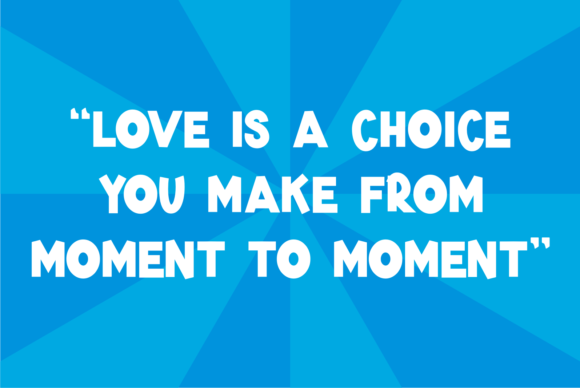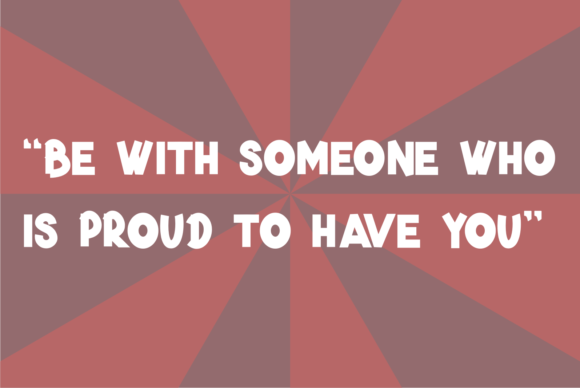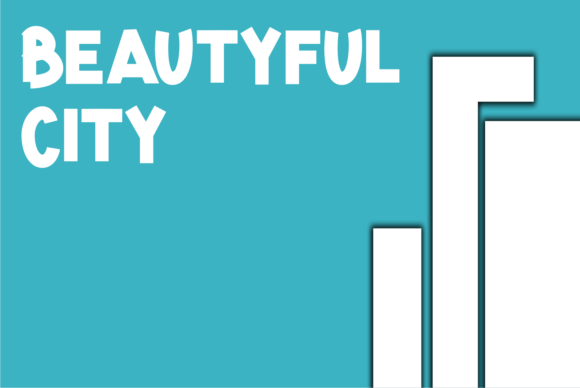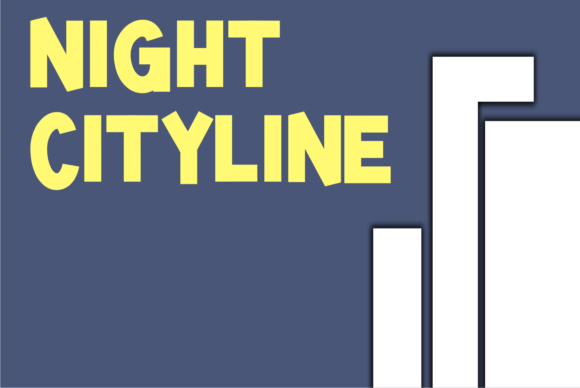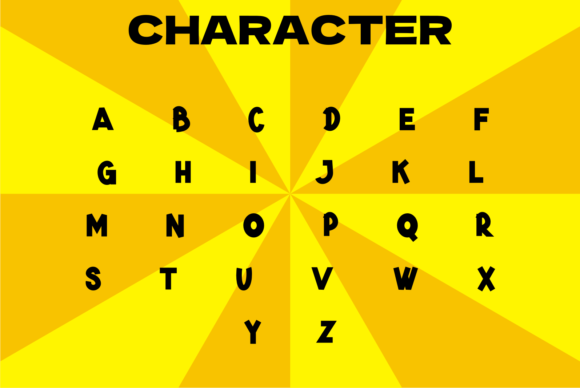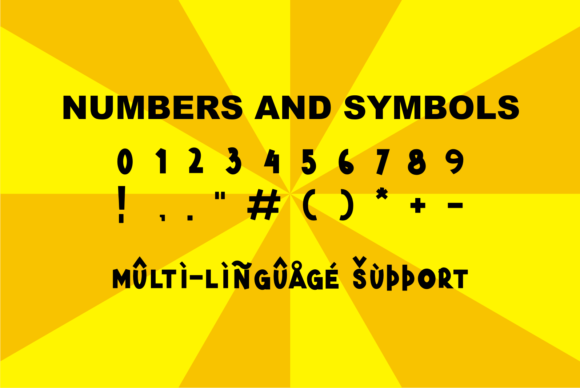
Introducing Doom Berol Font: The Ultimate Display Font for Stunning Creations
Are you tired of using the same old fonts for your designs and crafts? Look no further! Doom Berol Font is here to revolutionize the way you create, with its thick-lettered and cool display font that’s sure to make your projects stand out from the crowd. In this article, we’ll dive into the world of Doom Berol Font, exploring its features, benefits, and uses, as well as providing tips and inspiration for designers and crafters alike.
The Power of Doom Berol Font
Doom Berol Font is a game-changer for anyone looking to add a touch of style and sophistication to their designs. With its simple yet strong visual effect, this font is perfect for making a statement. Whether you’re working on a logo, poster, or social media graphic, Doom Berol Font is sure to instantly elevate your creations and make them more appealing than any others.
Key Features of Doom Berol Font
- Thick-Lettered Design: Doom Berol Font boasts a bold and chunky design that’s perfect for creating eye-catching headlines and titles.
- Cool Display Font: With its sleek and modern aesthetic, Doom Berol Font is ideal for use in display settings, such as posters, flyers, and social media graphics.
- Simple yet Effective: Despite its bold design, Doom Berol Font is surprisingly simple to read and use, making it perfect for a wide range of applications.
Benefits of Using Doom Berol Font
So why choose Doom Berol Font for your next project? Here are just a few benefits of using this amazing display font:
- Instant Impact: With Doom Berol Font, you can instantly add a touch of style and sophistication to your designs, making them more engaging and effective.
- Versatility: Whether you’re working on a logo, poster, or social media graphic, Doom Berol Font is versatile enough to be used in a wide range of applications.
- Easy to Use: Despite its bold design, Doom Berol Font is surprisingly simple to use, making it perfect for designers and crafters of all skill levels.
Uses for Doom Berol Font
So what can you use Doom Berol Font for? The possibilities are endless! Here are a few ideas to get you started:
- Logos and Branding: Use Doom Berol Font to create a bold and memorable logo that’s sure to make your brand stand out.
- Posters and Flyers: Add a touch of style and sophistication to your posters and flyers with Doom Berol Font.
- Social Media Graphics: Use Doom Berol Font to create eye-catching social media graphics that are sure to grab attention.
- Crafting and Scrapbooking: Add a personal touch to your crafts and scrapbooking projects with Doom Berol Font.
Tips for Using Doom Berol Font
Here are a few tips for getting the most out of Doom Berol Font:
- Experiment with Colors: Try pairing Doom Berol Font with different colors to create a unique and eye-catching effect.
- Play with Size: Experiment with different font sizes to create a bold and dramatic effect.
- Combine with Other Fonts: Try pairing Doom Berol Font with other fonts to create a unique and interesting effect.
In conclusion, Doom Berol Font is a game-changer for designers and crafters looking to add a touch of style and sophistication to their creations. With its thick-lettered and cool display font, this font is perfect for making a statement. Whether you’re working on a logo, poster, or social media graphic, Doom Berol Font is sure to instantly elevate your creations and make them more appealing than any others. So why wait? Download Doom Berol Font today and start creating stunning designs that are sure to grab attention!